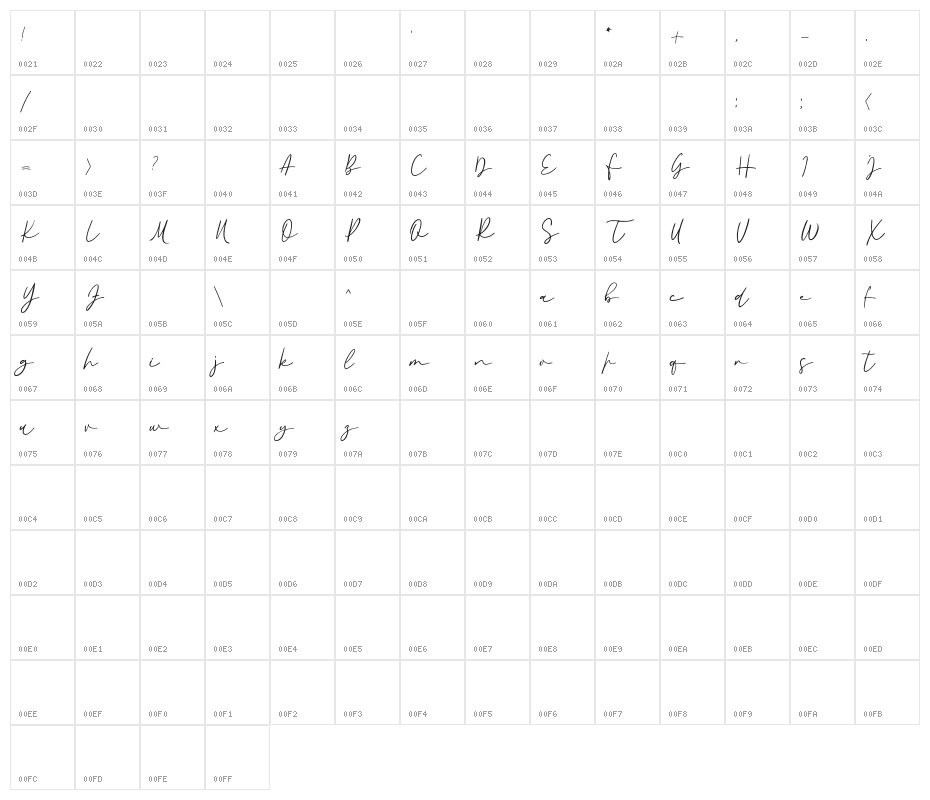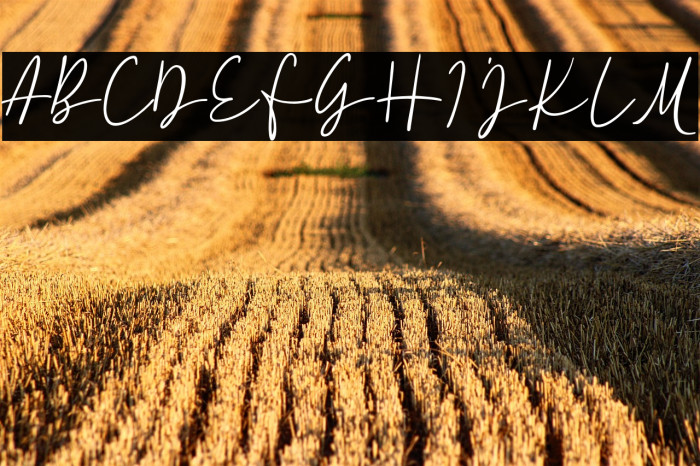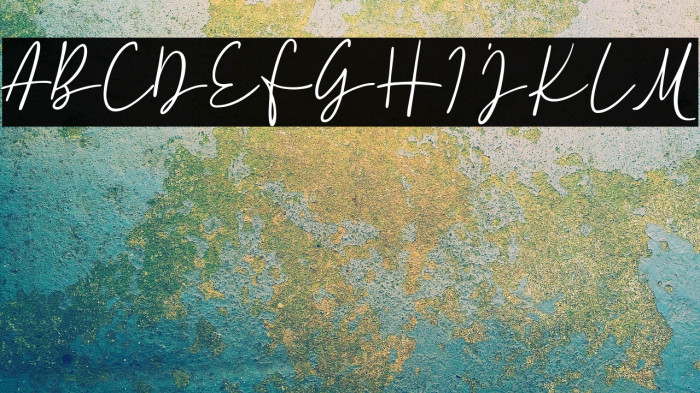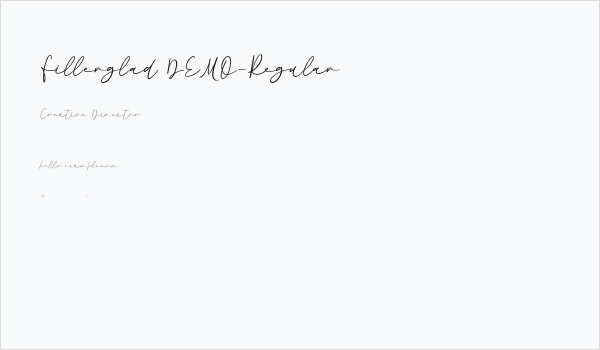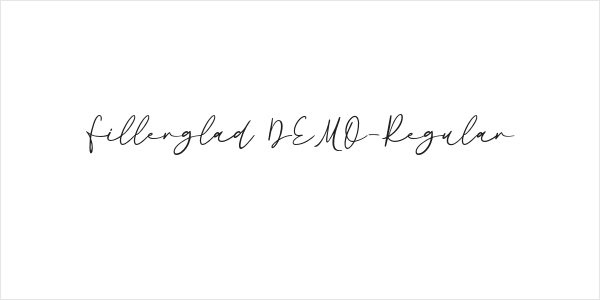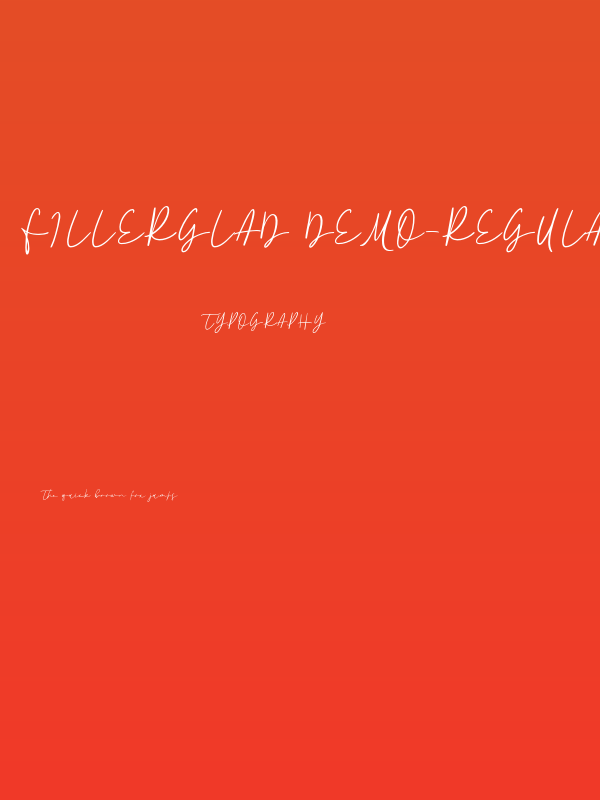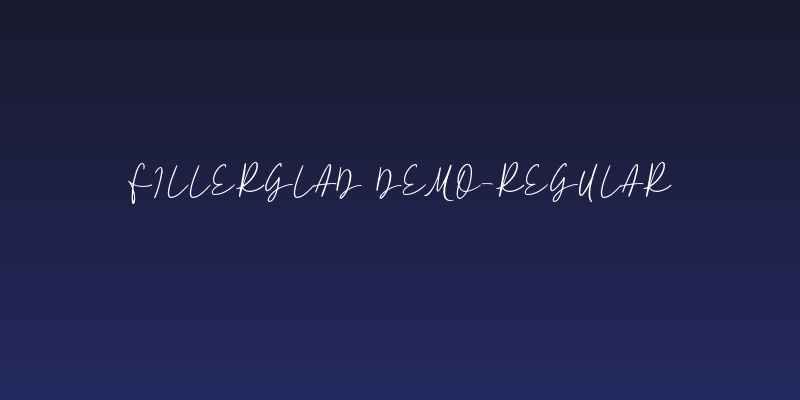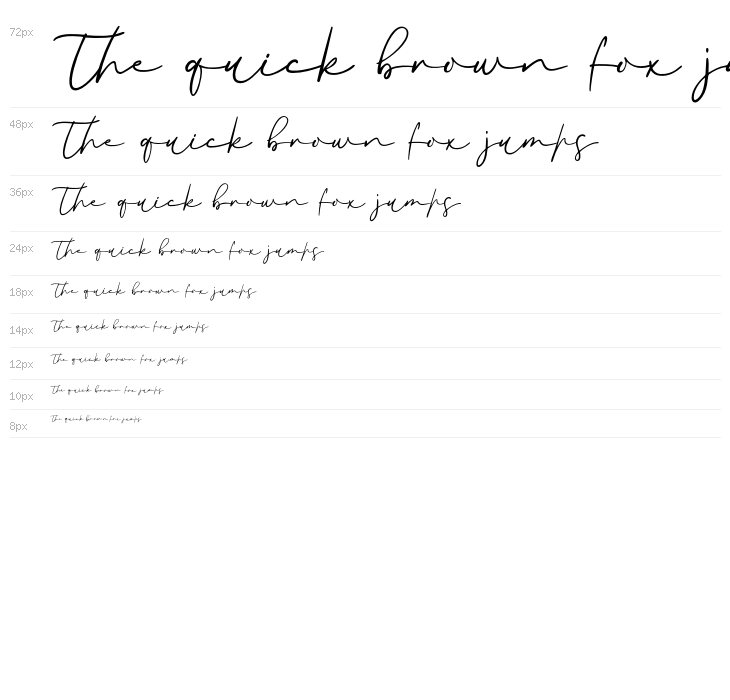
Fillerglad DEMO-Regular Font
Fillerglad DEMO-Regular Description
This font features a flowing, handwritten style that exudes elegance and sophistication. The characters are connected in a cursive manner, giving it a seamless and fluid appearance. The strokes are thin and delicate, with a consistent line weight that adds to its graceful aesthetic. The uppercase letters are slightly taller than the lowercase, maintaining a balanced proportion. The special characters are crafted with the same attention to detail, ensuring they blend seamlessly with the alphabet. This font is perfect for projects that require a personal touch, such as invitations, greeting cards, or branding materials.